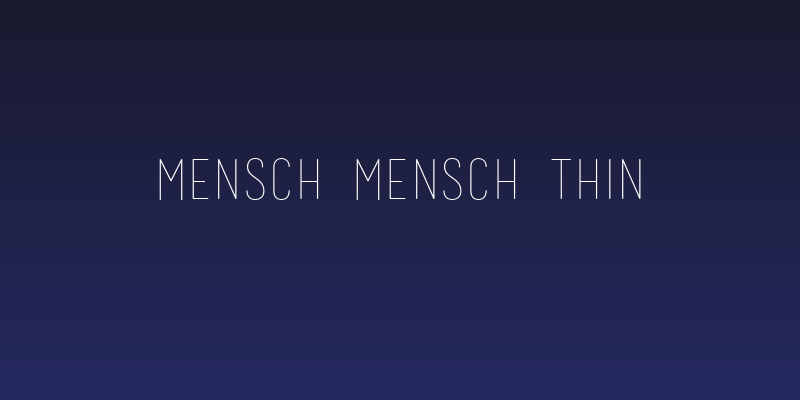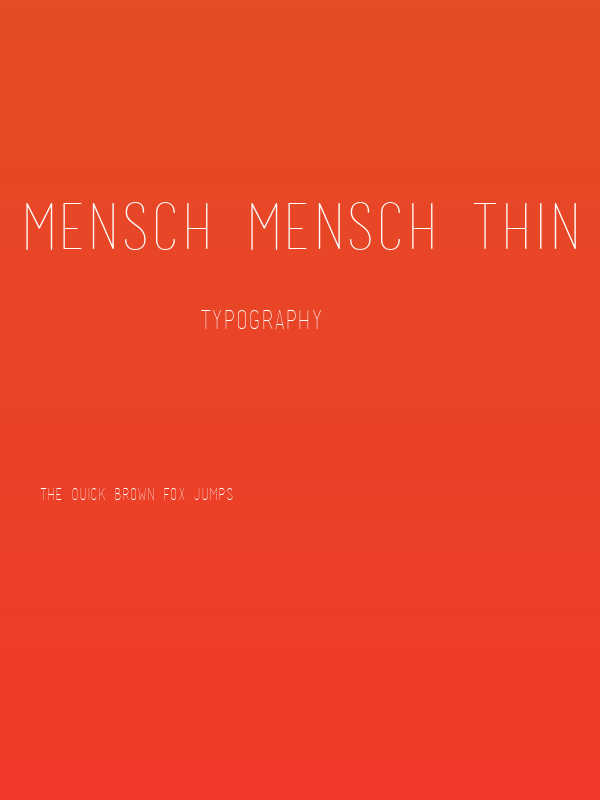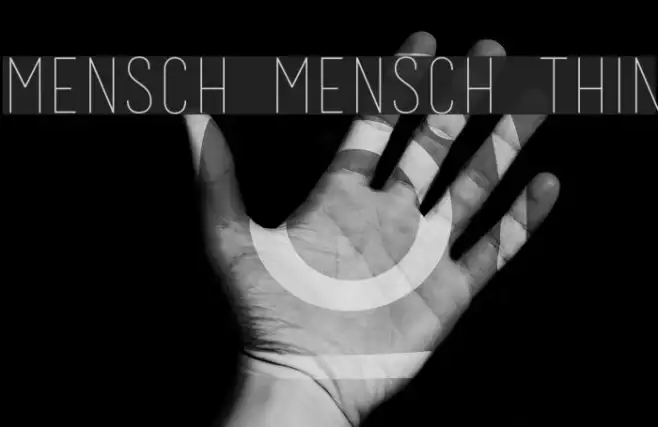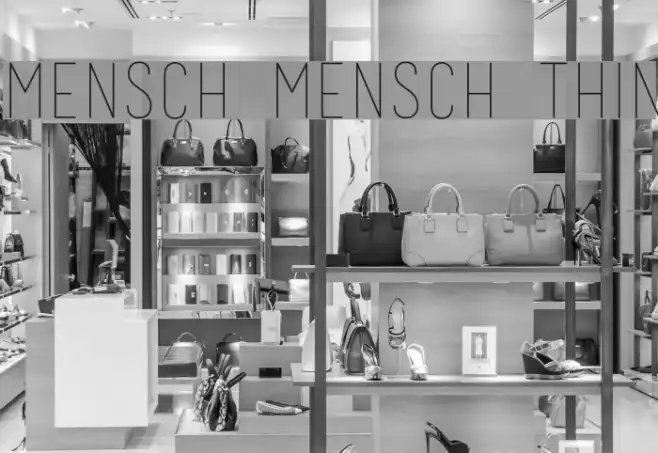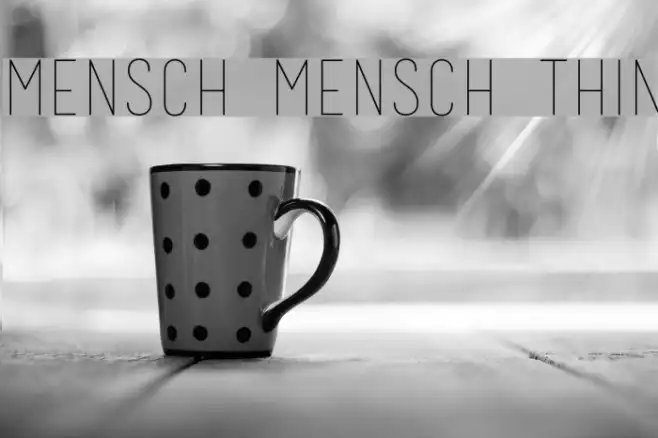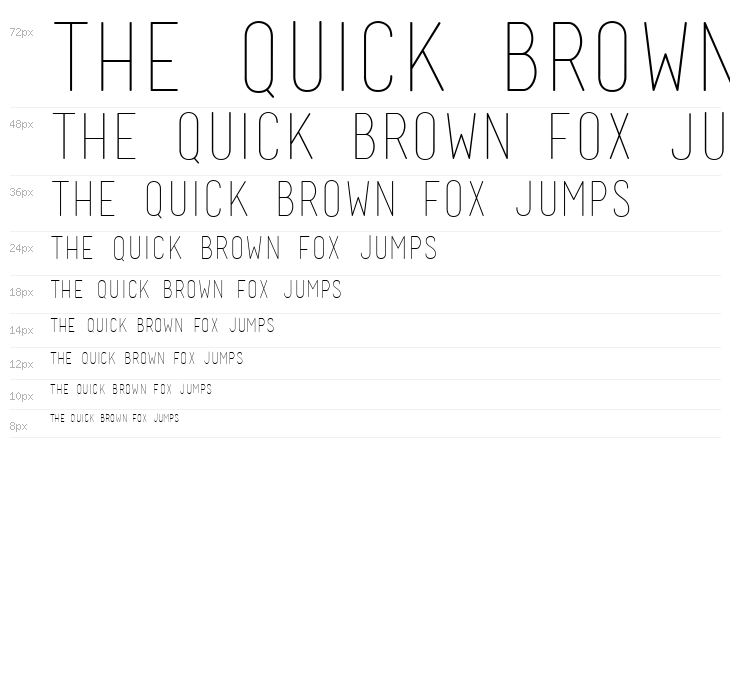
Mensch Mensch Thin Font
Mensch Mensch Thin Description
This font features a clean and minimalist design with thin, uniform strokes that create a modern and elegant appearance. The characters are tall and narrow, contributing to a sleek and sophisticated look. The uppercase and lowercase letters maintain a consistent style, with a geometric influence evident in their construction. The numerals are clear and legible, matching the overall aesthetic of the font. Special characters are included, maintaining the same thin and precise line work. This font is ideal for projects that require a contemporary and refined touch.
| Proposed Projects | Ideal for branding, editorial design, and minimalist web design projects. |